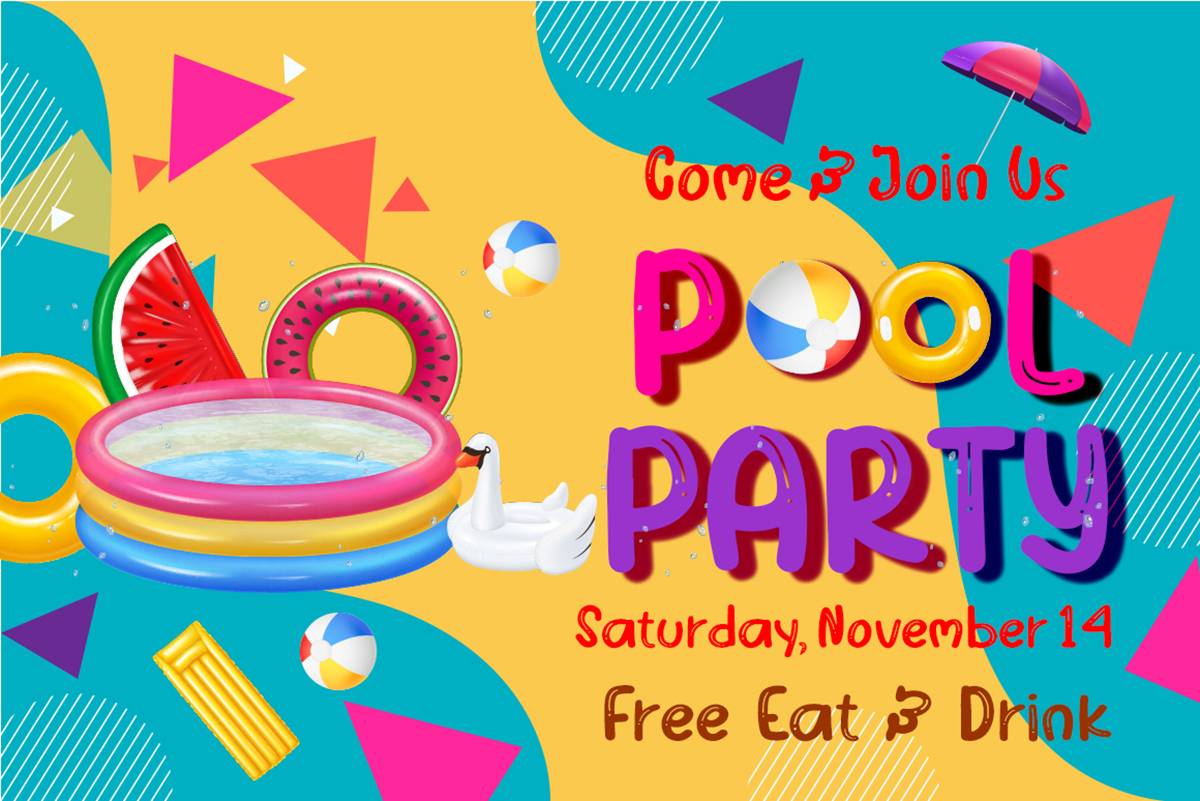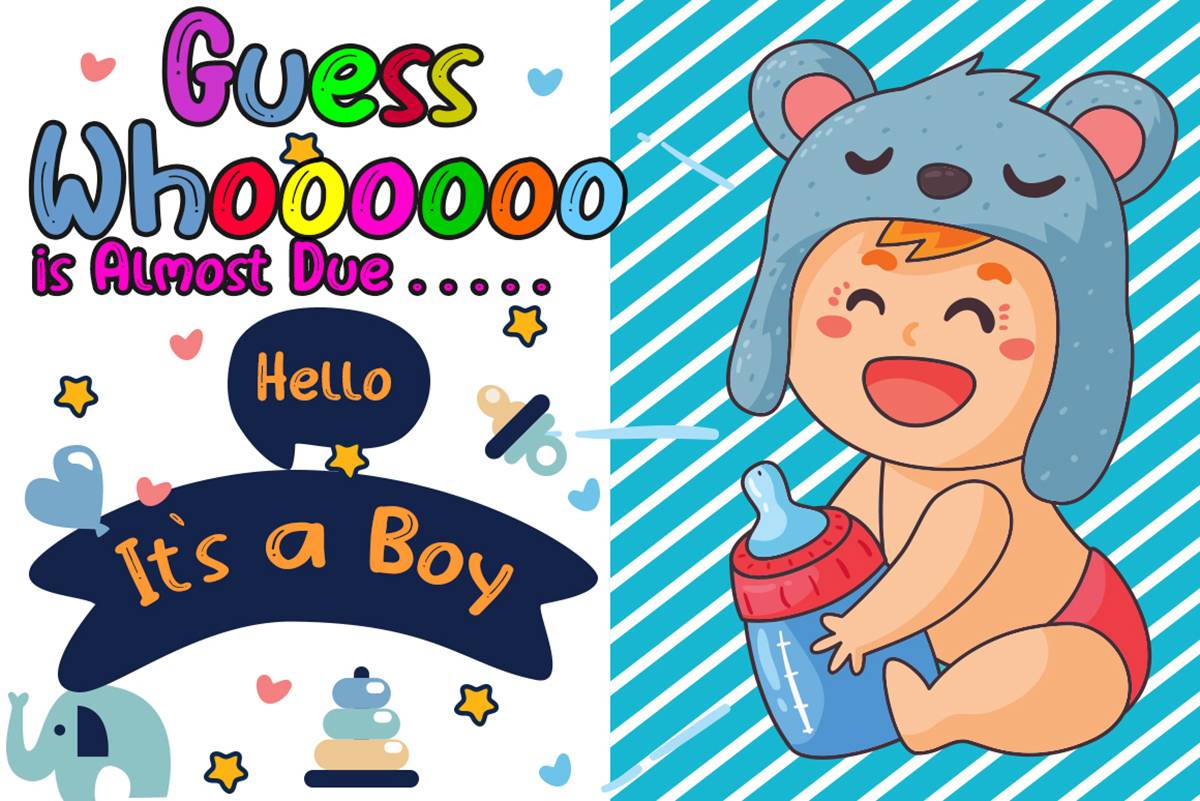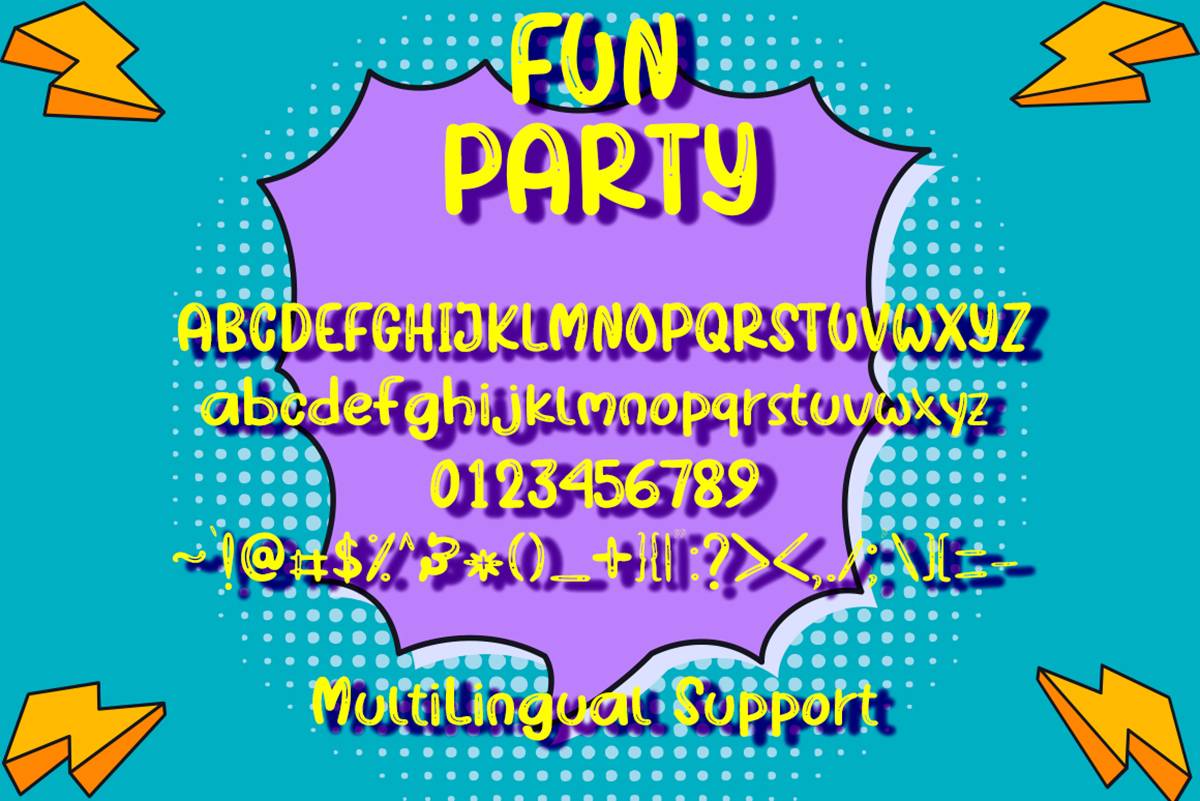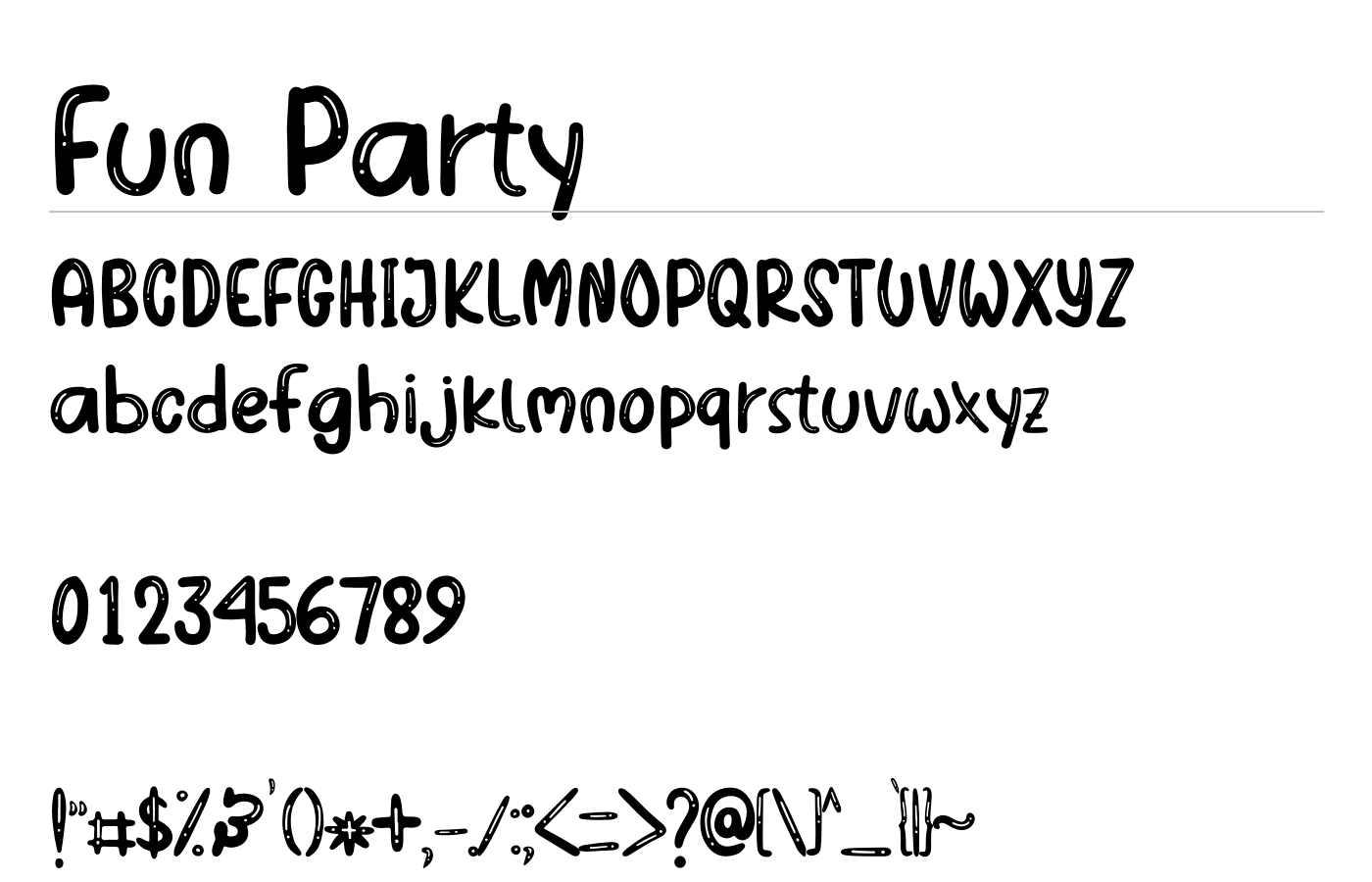
Fun Party Font is a playful, hand-drawn sans serif typeface with a lively and casual feel. Its irregular stroke widths and quirky letter shapes create an inviting, friendly vibe that works perfectly for informal branding, party invitations, children’s materials, and any design seeking a fun and approachable personality. This font’s unique style is ideal for adding character to headlines, logos, and creative projects where a cheerful, whimsical touch is desired.
Fun Party Font
About Fun Party Font
| Font family | Fun Party Font |
| Designer | Fajar Wicaksono |
| Trademark | Booga Letter |